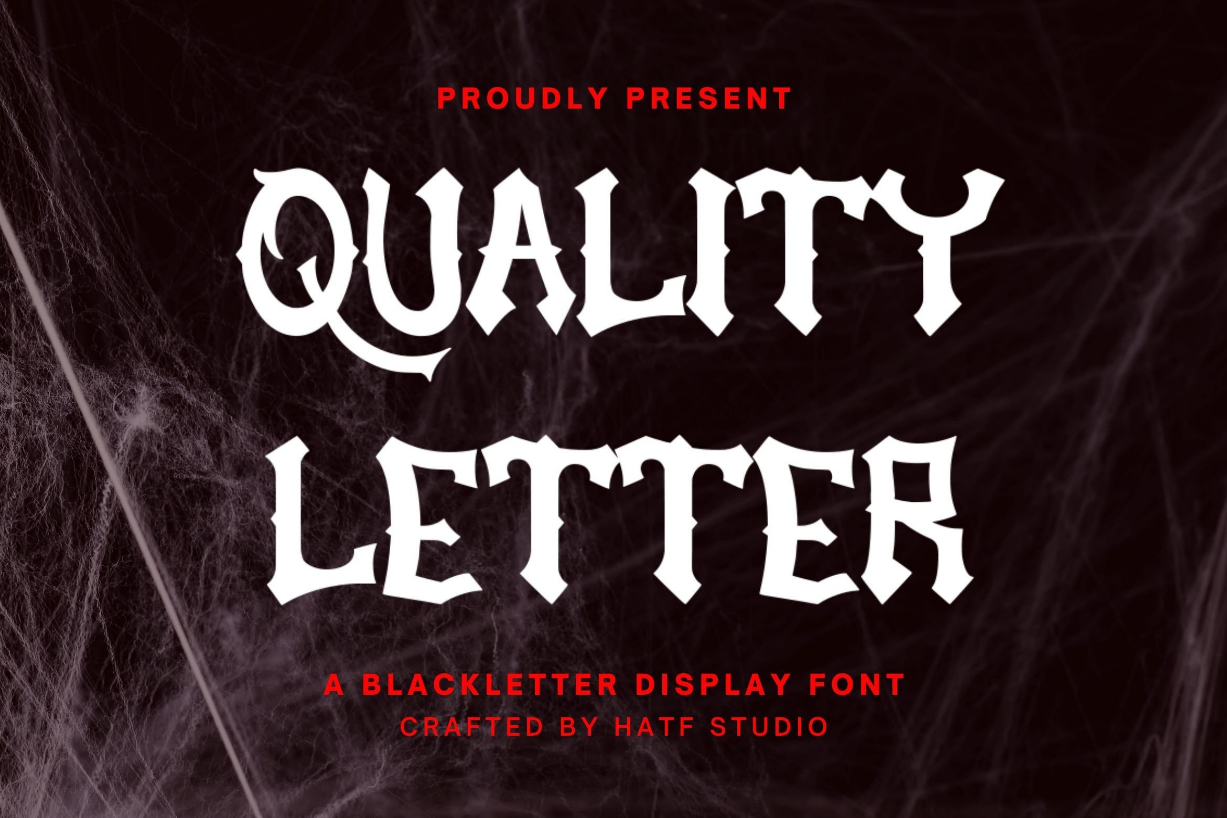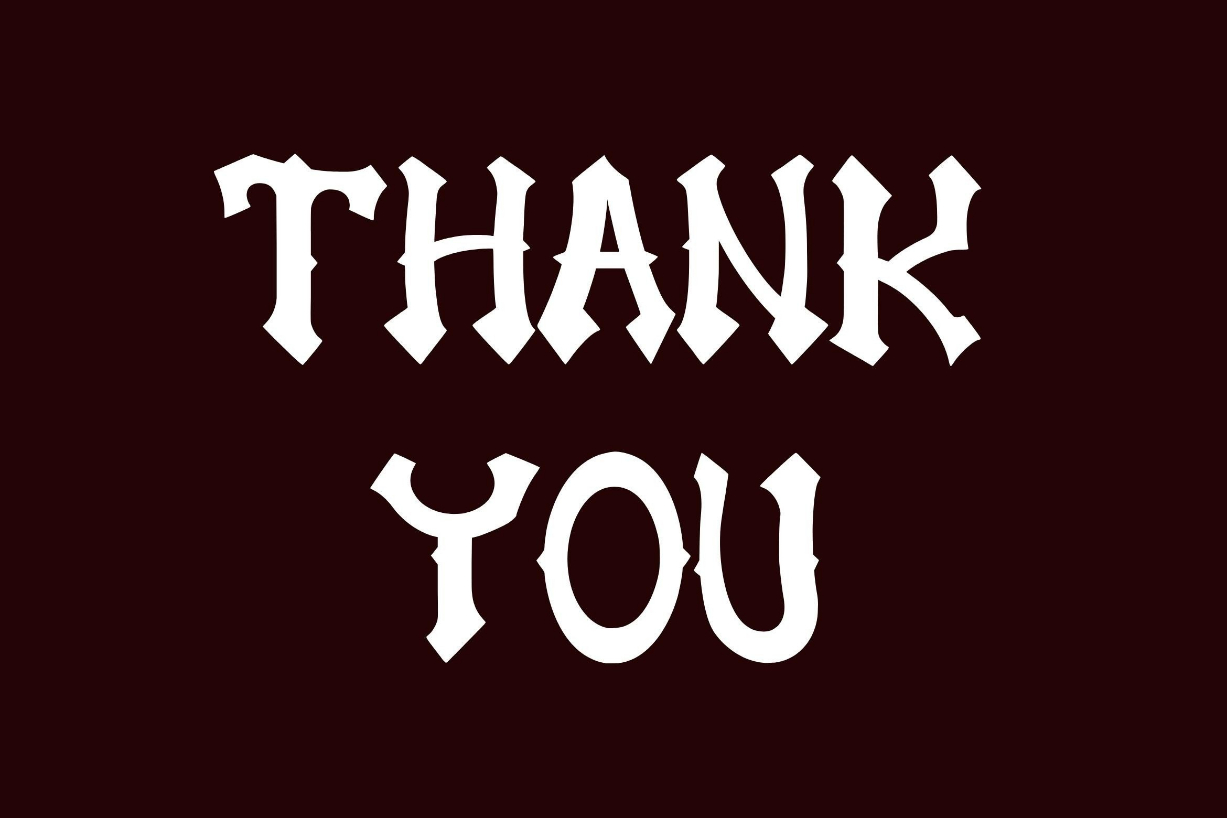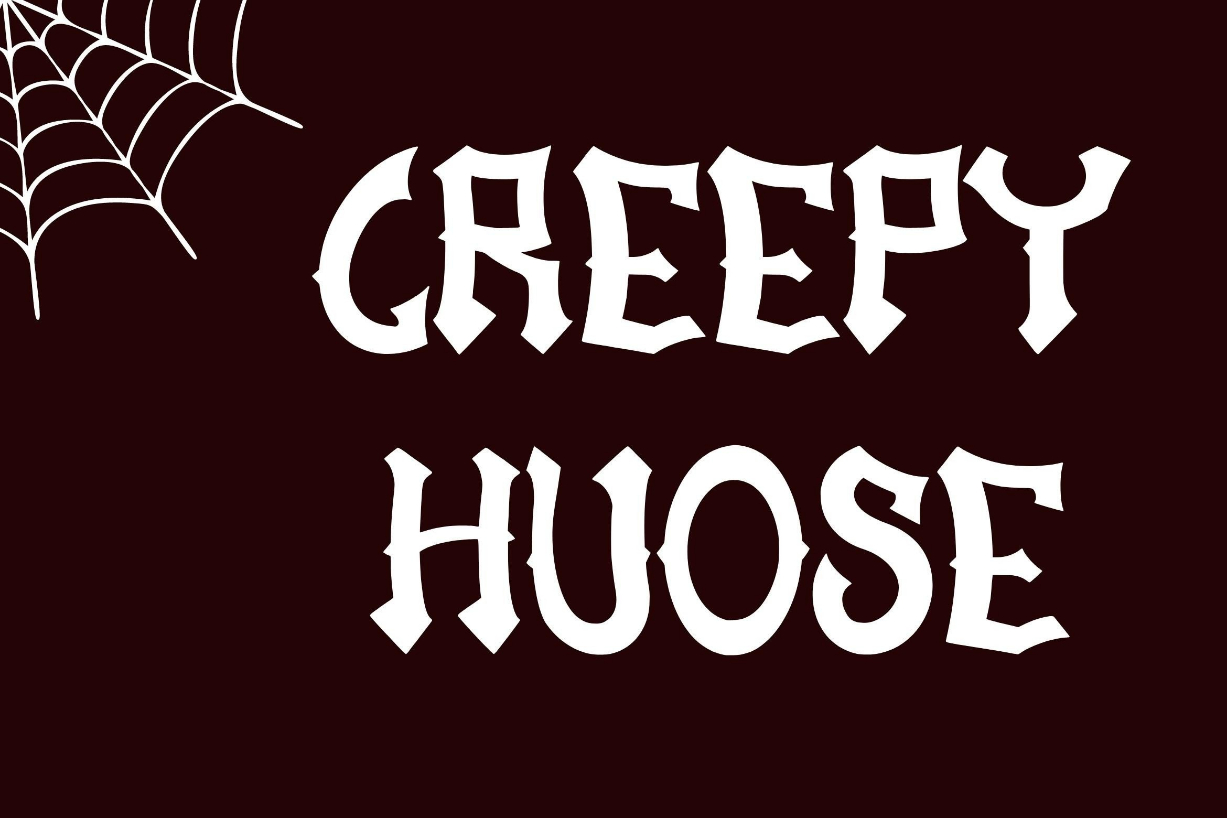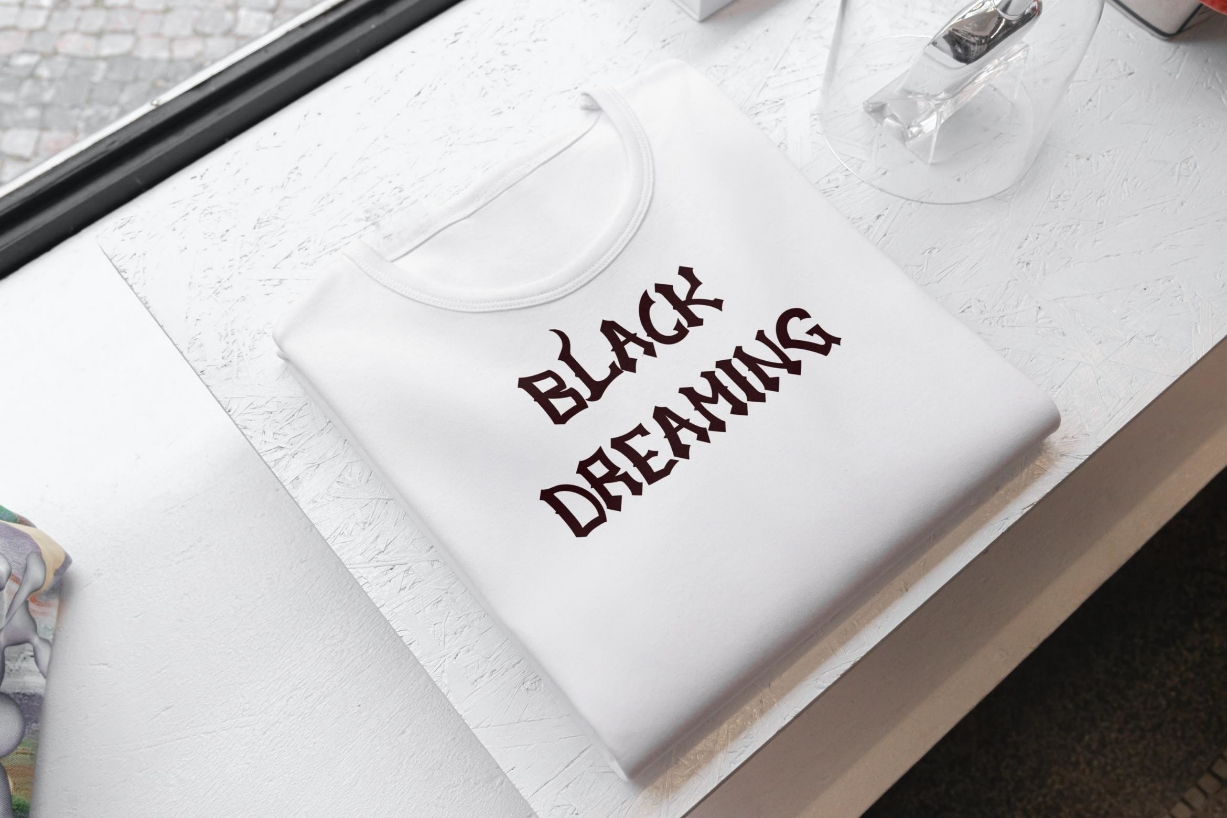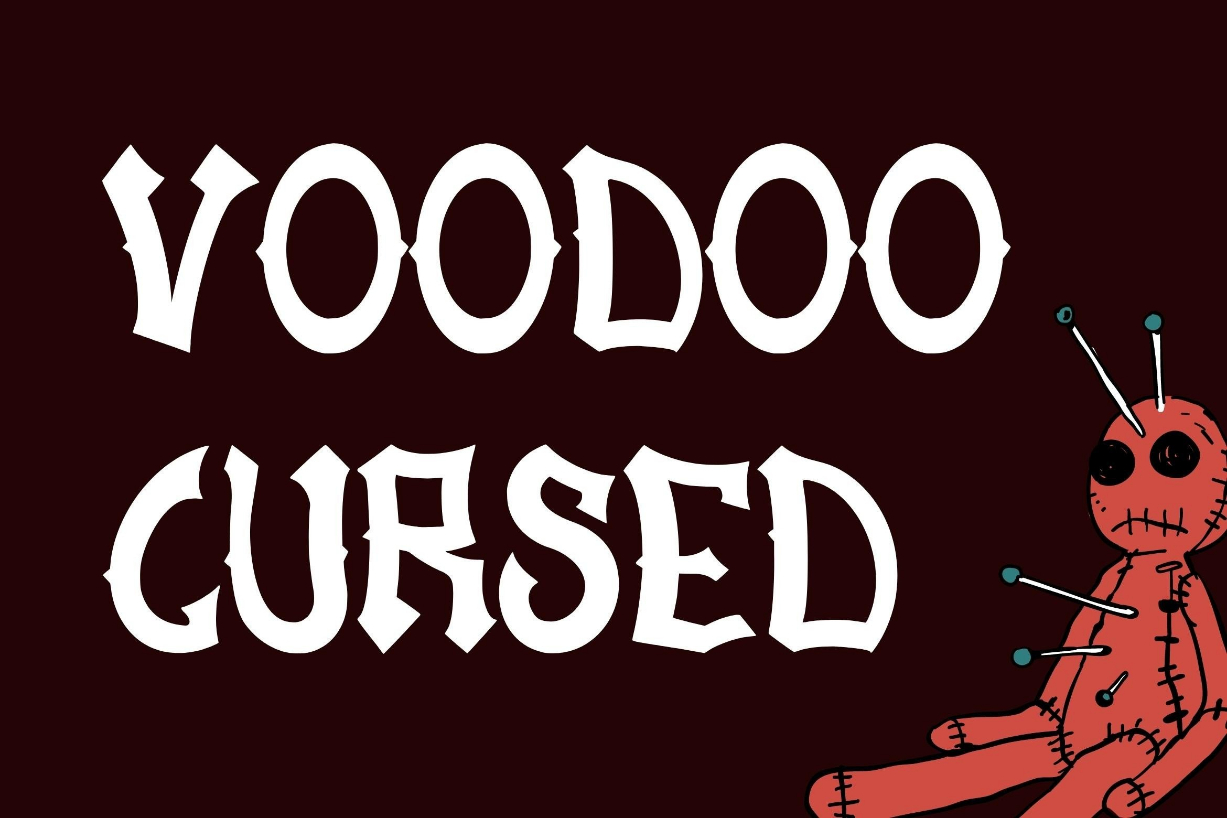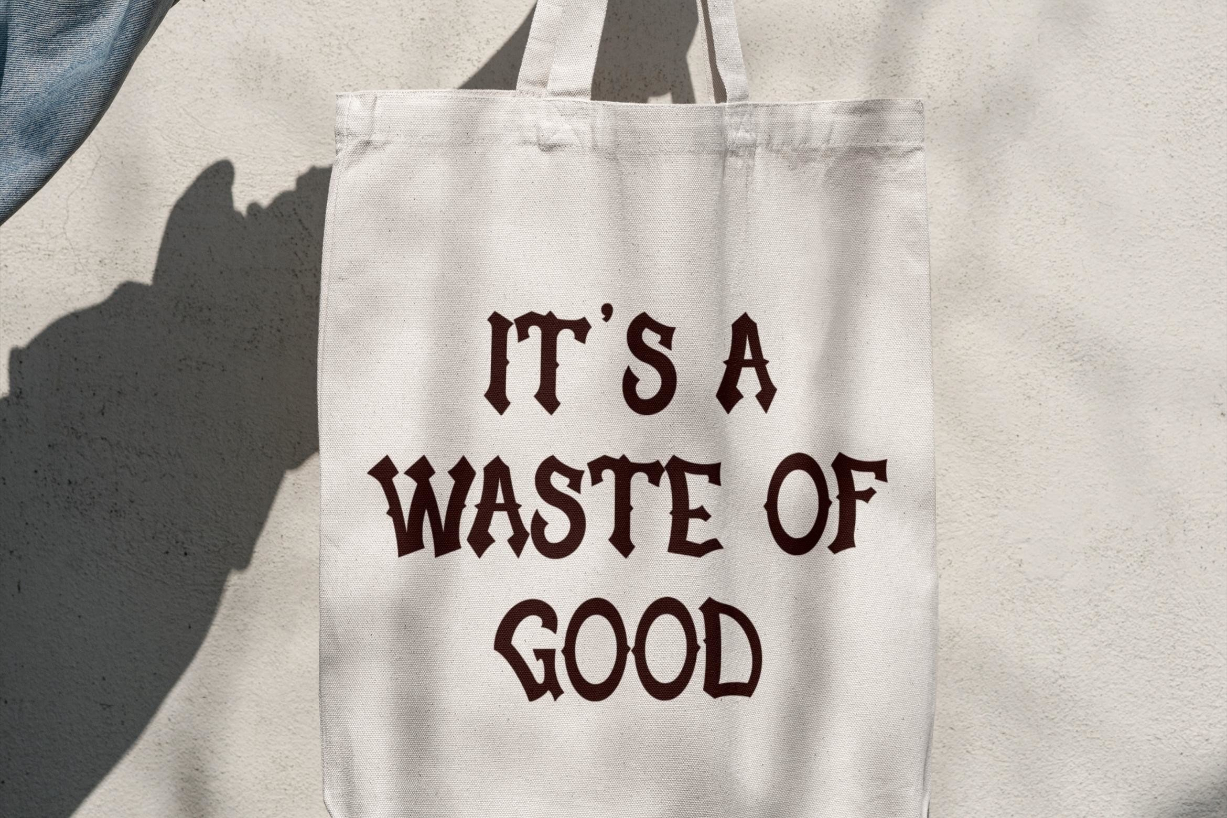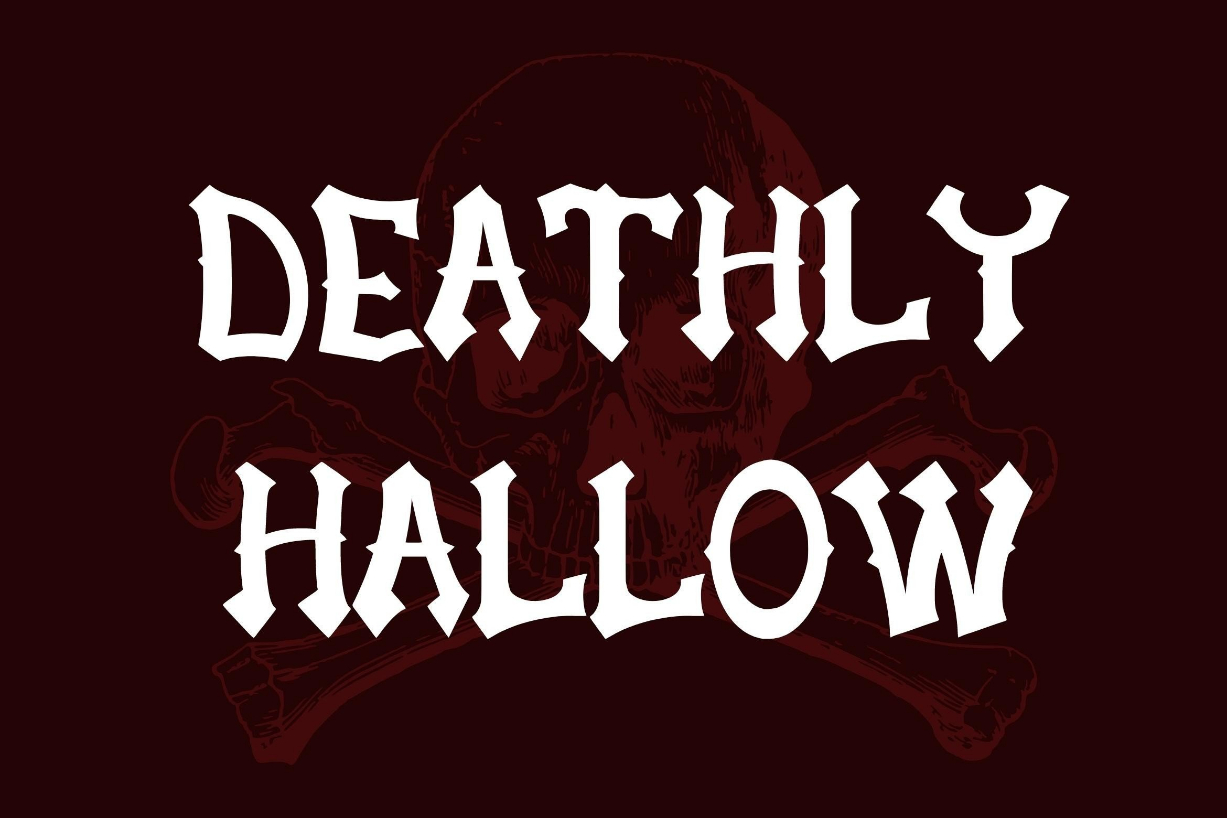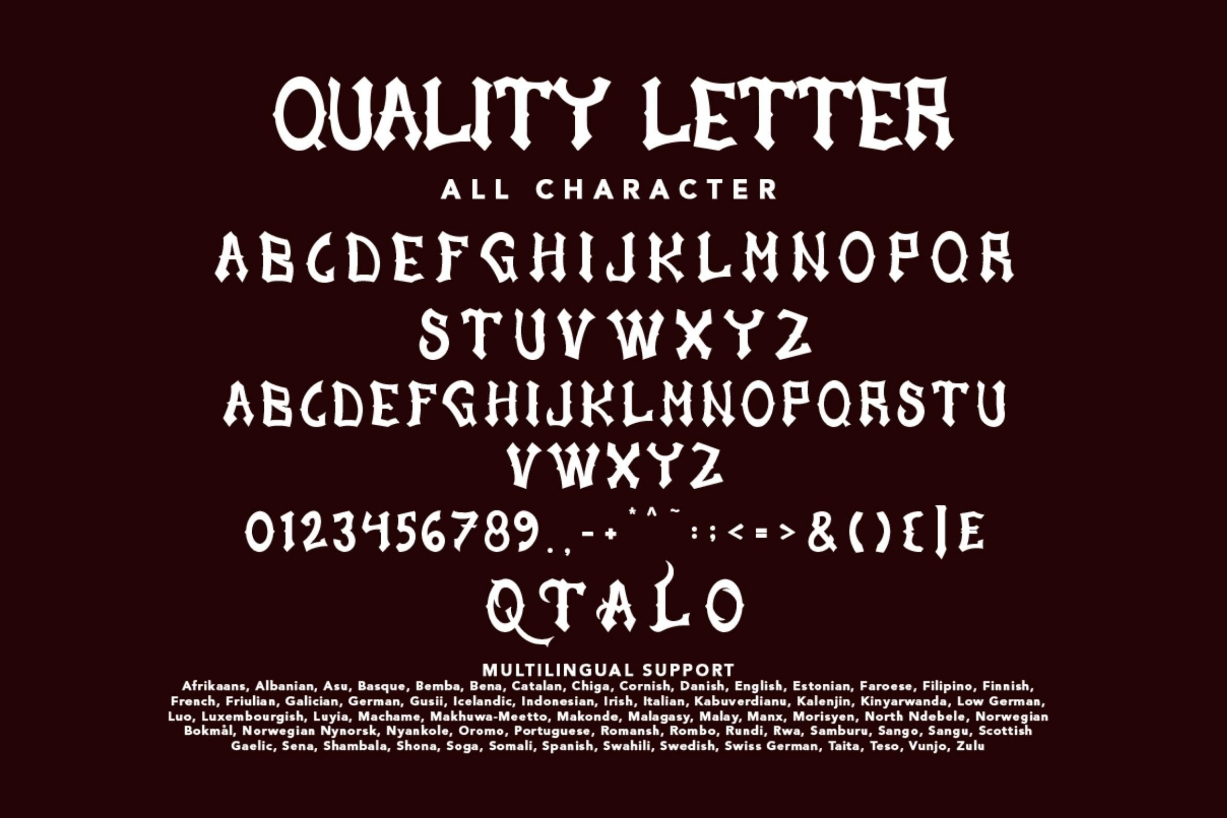
Quality Letter Font
About Quality Letter Font
Quality Letter is a cool and daring blackletter font masterfully crafted to become a true favorite. Contemporary and fresh, it is perfect for any design you wish to create. Add it to your creative projects and make them outstanding!